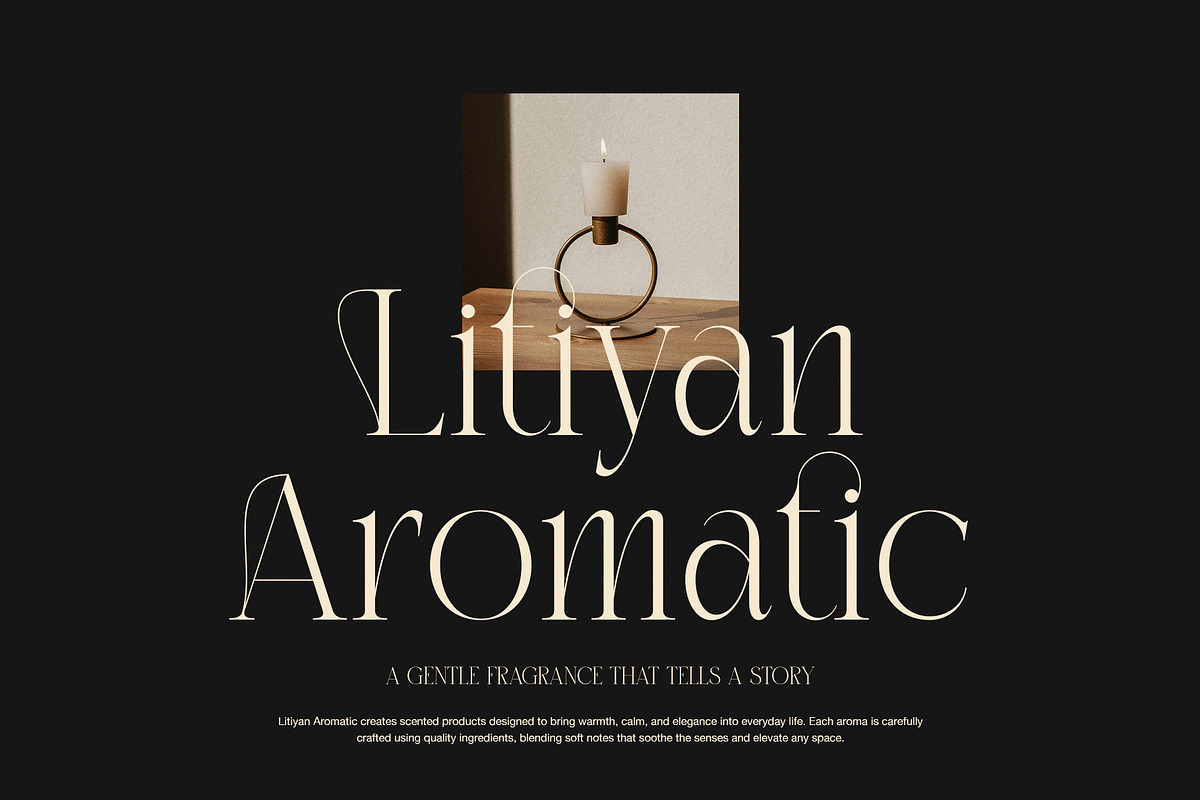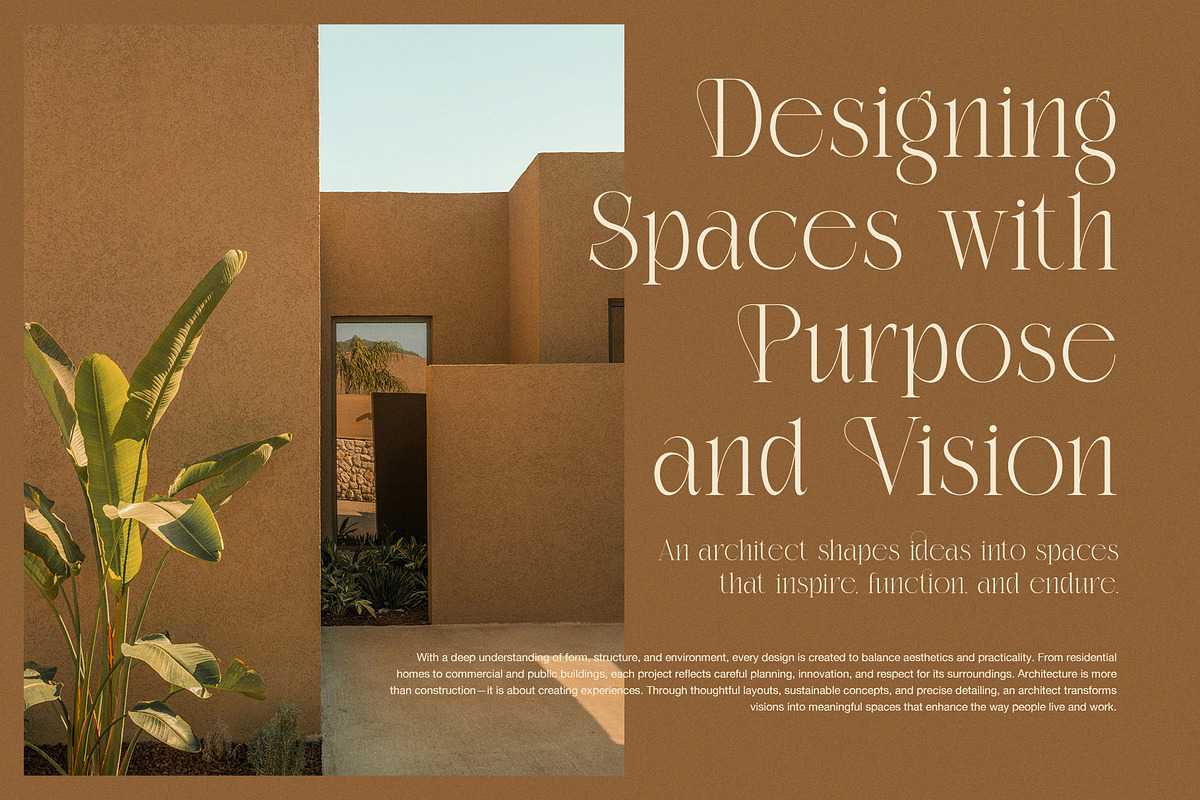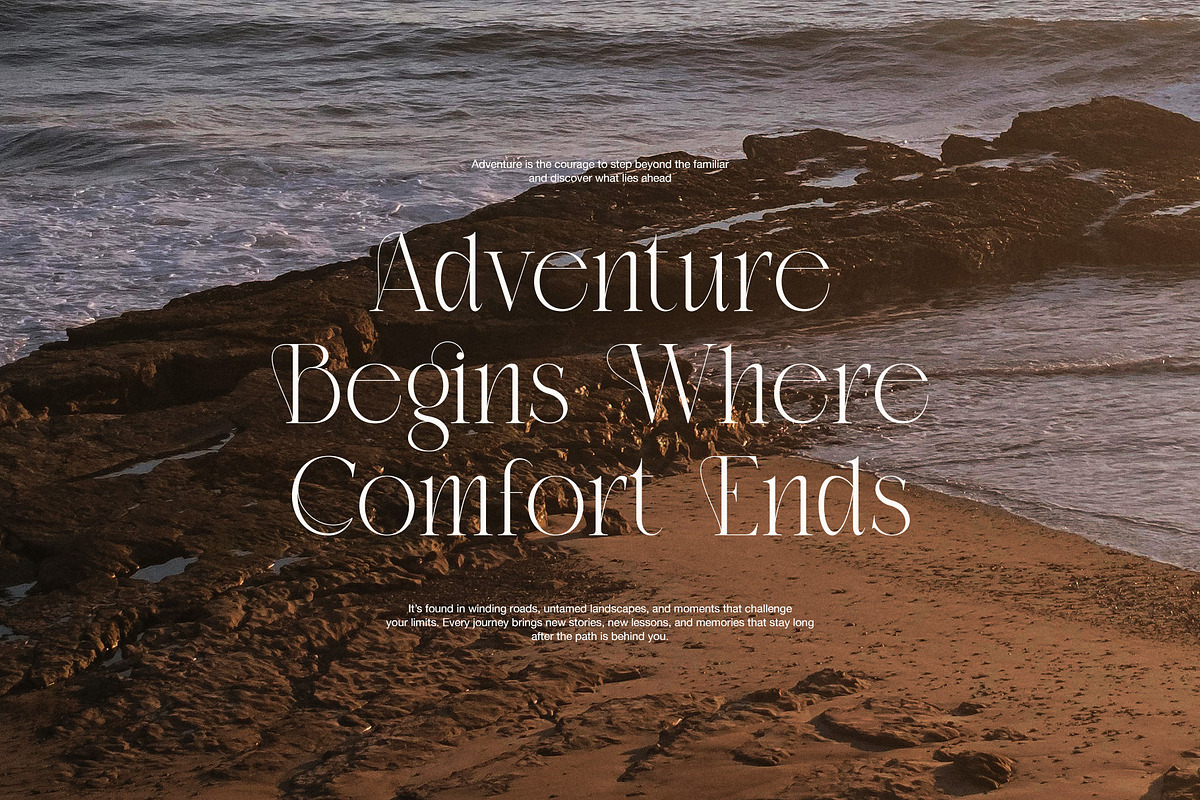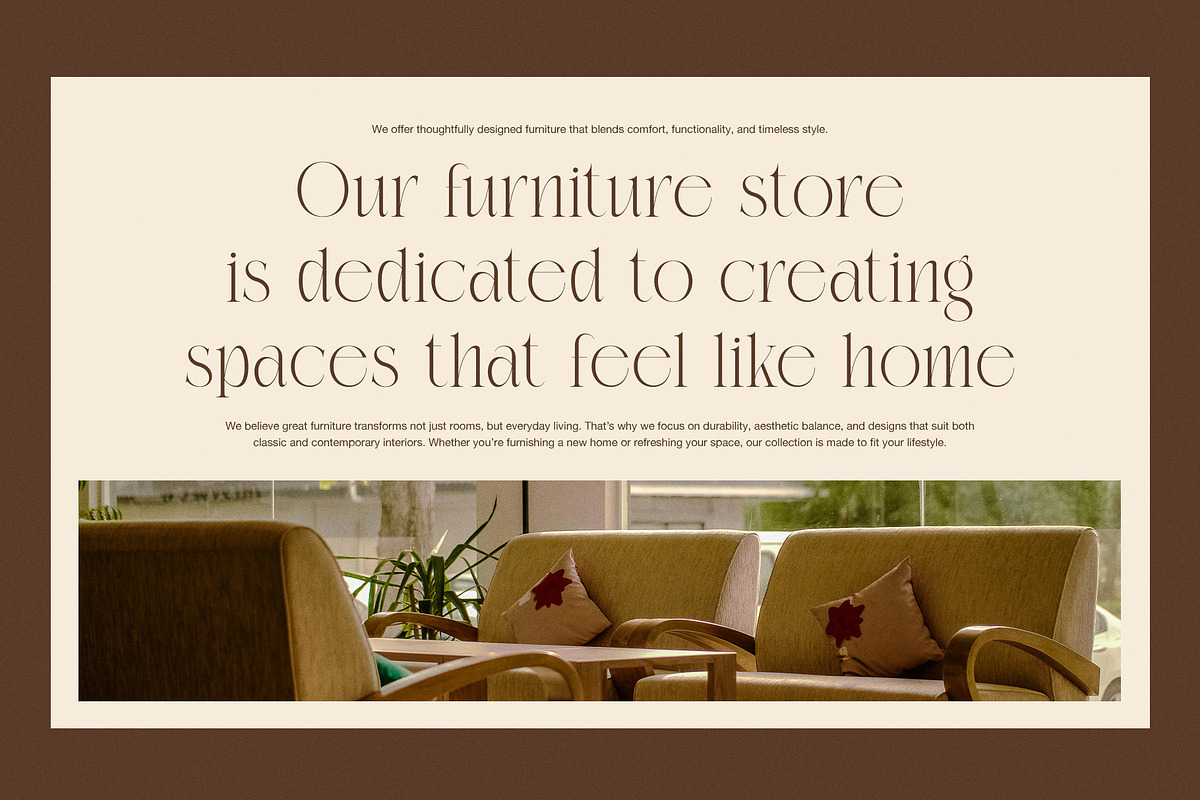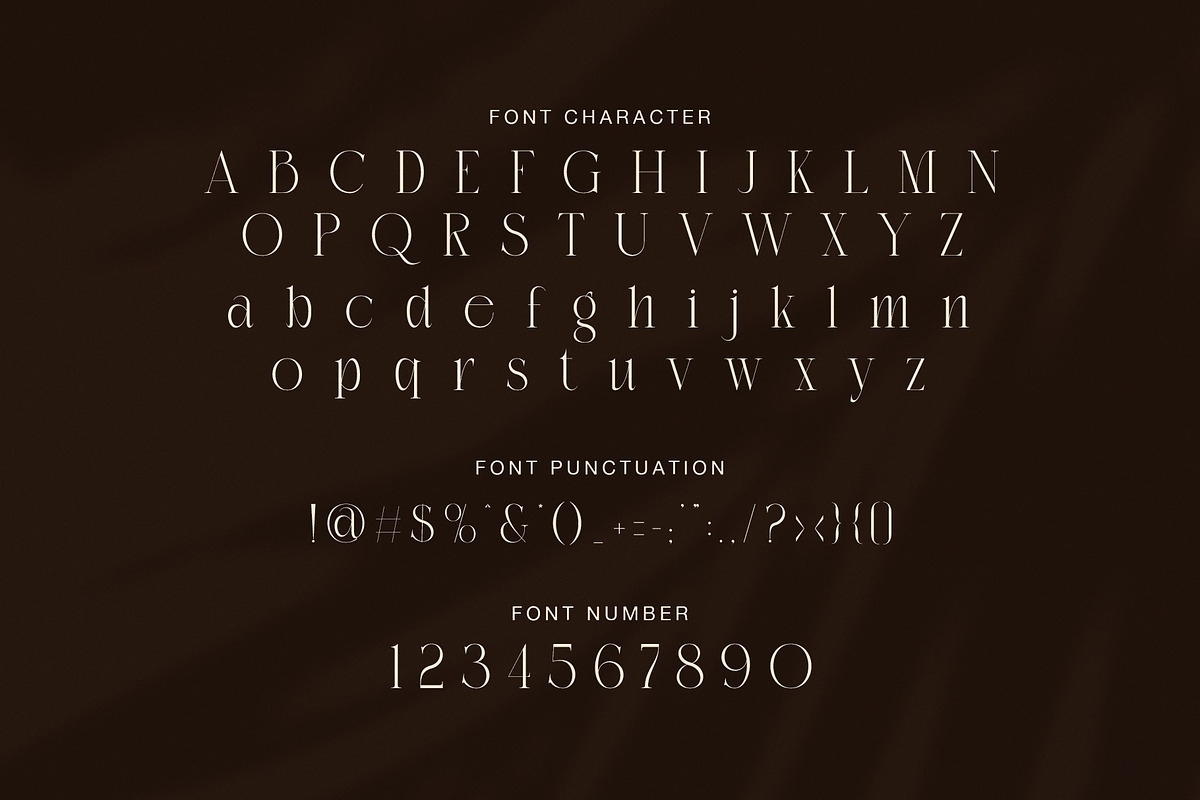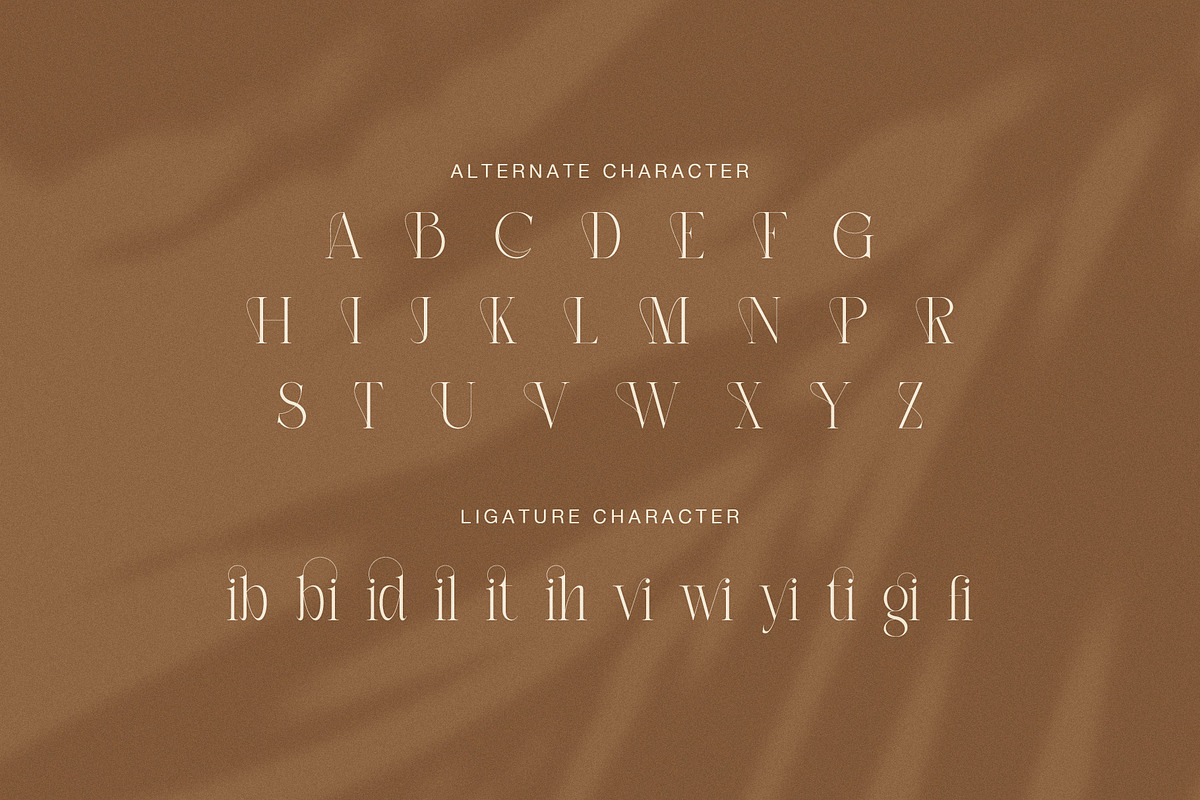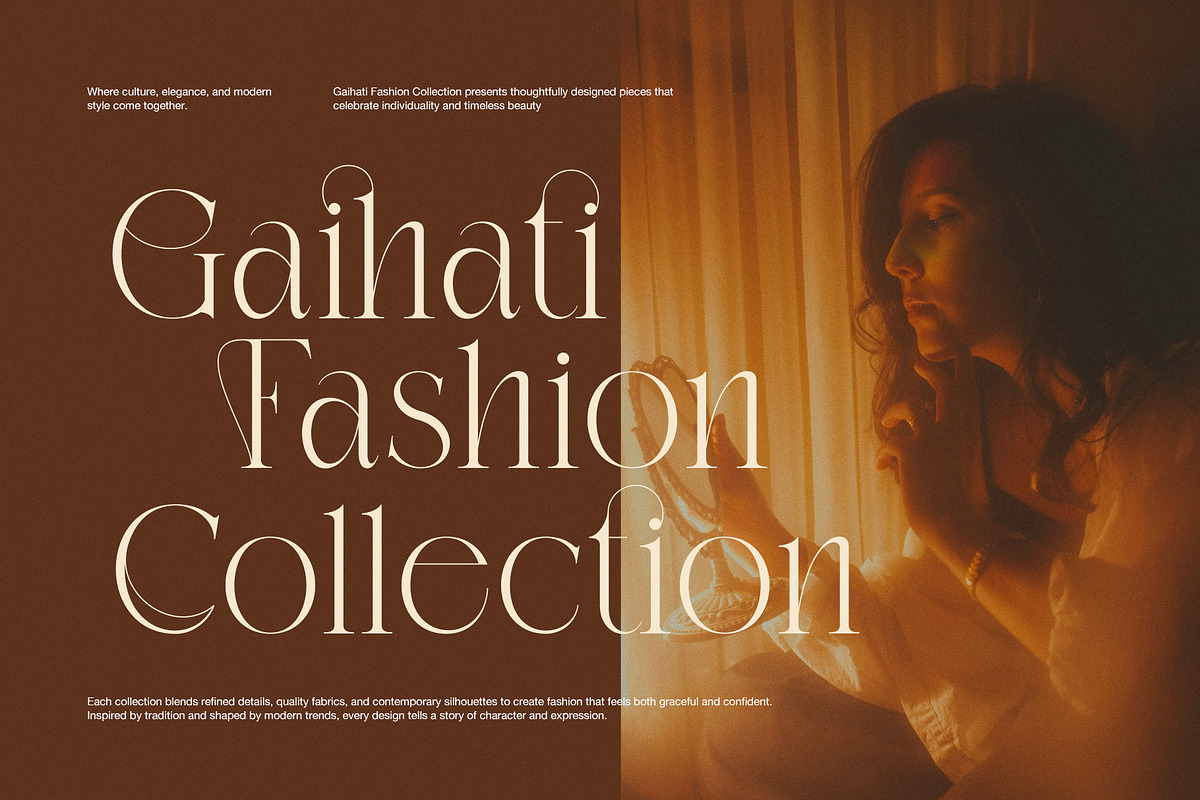
Bidant Elegant Serif Font
Bidant is an elegant serif font designed to bring refinement, warmth, and timeless beauty to modern design projects. With its graceful curves, high-contrast strokes, and artistic alternates, Bidant creates a luxurious visual rhythm that feels both classic and contemporary. As a result, it works beautifully across branding, editorial layouts, fashion campaigns, and lifestyle designs.
Moreover, Bidant features carefully crafted letterforms that balance softness with structure. Each character feels intentional, which helps headlines look confident while remaining graceful. Because of this balance, the font performs exceptionally well in large display sizes, yet it also remains readable in refined body text or short descriptions.
In addition, Bidant includes alternate characters and elegant ligatures that allow designers to customize typography with subtle personality. These details add movement and sophistication without overwhelming the design. Therefore, your layouts feel expressive while staying clean and professional.
Bidant is especially suitable for luxury branding, furniture catalogs, architecture presentations, perfume packaging, fashion editorials, and premium social media content. Whether you design for print or digital platforms, this serif font adapts smoothly while maintaining its strong identity.
Furthermore, Bidant pairs naturally with minimalist sans-serif fonts, which makes it ideal for modern layouts that need contrast and hierarchy. Designers can easily use it for logos, website headers, magazines, invitations, and product packaging that demand elegance and clarity.
Why choose Bidant Elegant Serif Font?
Elegant serif style with high contrast
Stylish alternates and ligature characters
Timeless look with modern refinement
Ideal for branding, editorial, and luxury projects
Strong readability with artistic character
Overall, Bidant is a versatile serif font that elevates visual storytelling. It adds emotional depth, visual harmony, and professional polish to every design. If you are looking for an elegant serif font that feels luxurious yet usable, Bidant is a perfect choice.